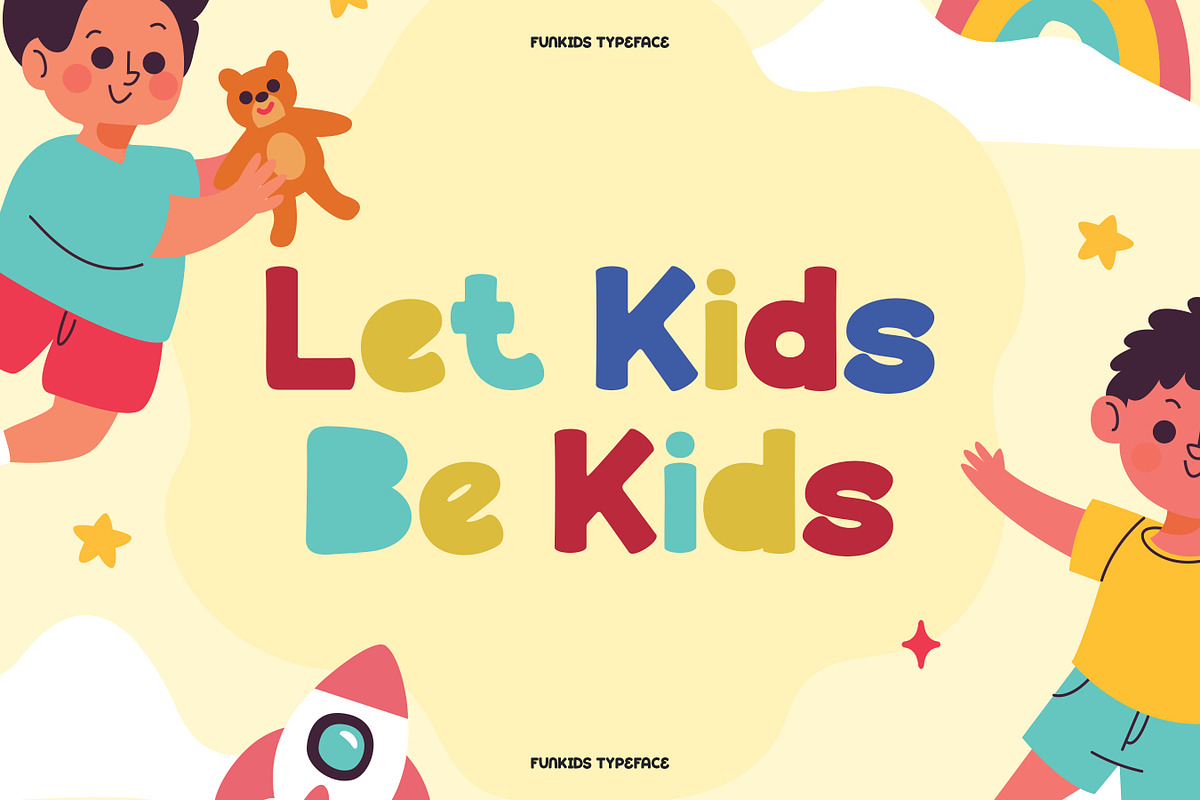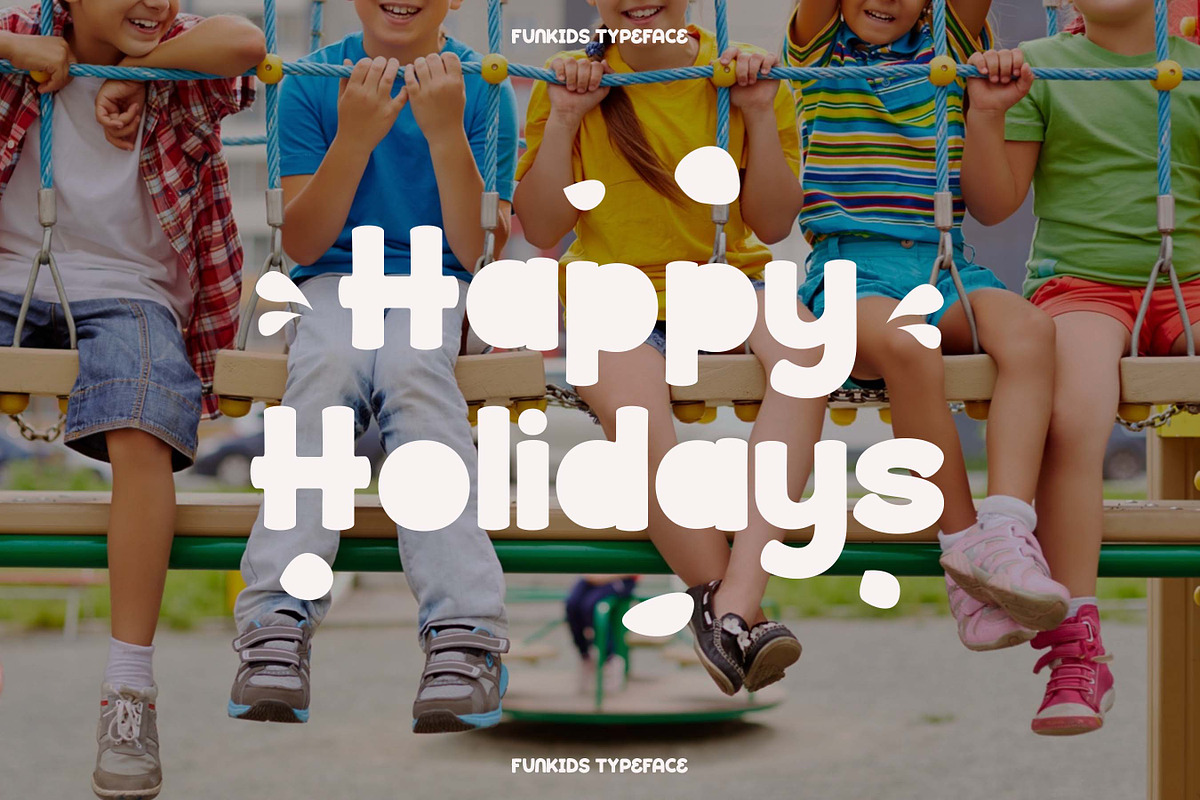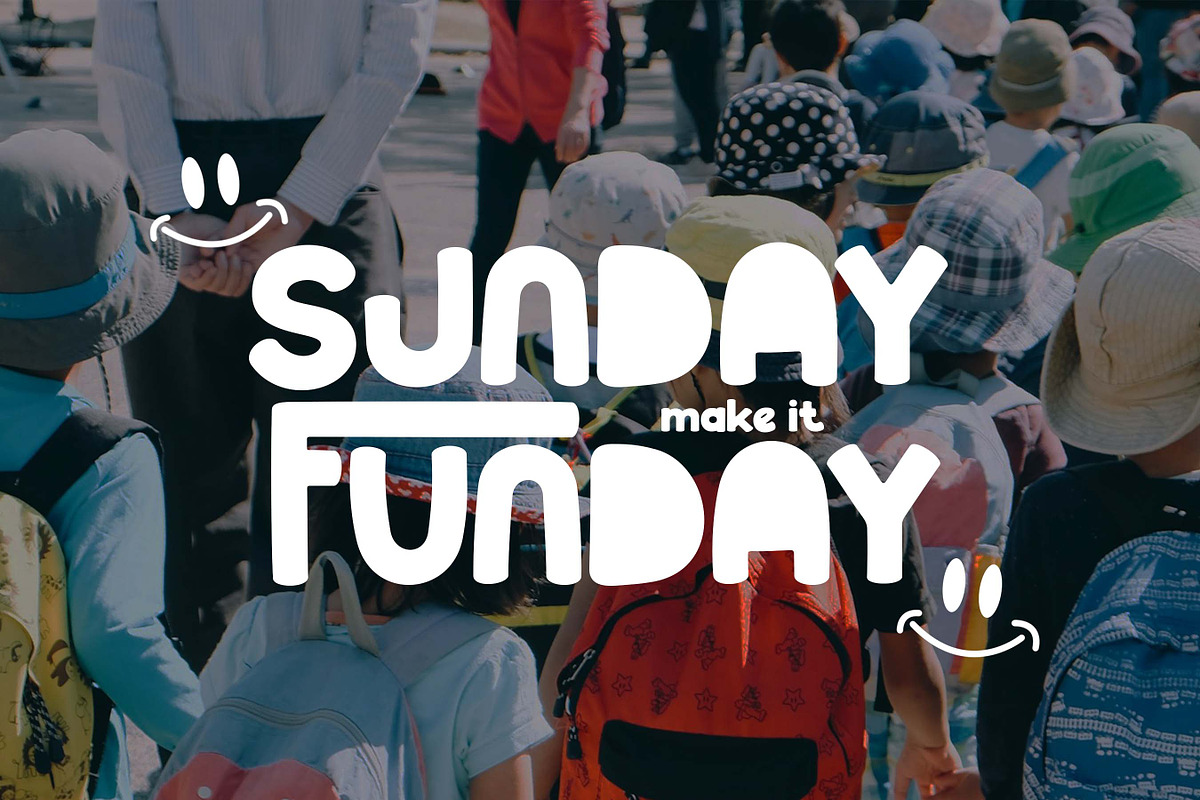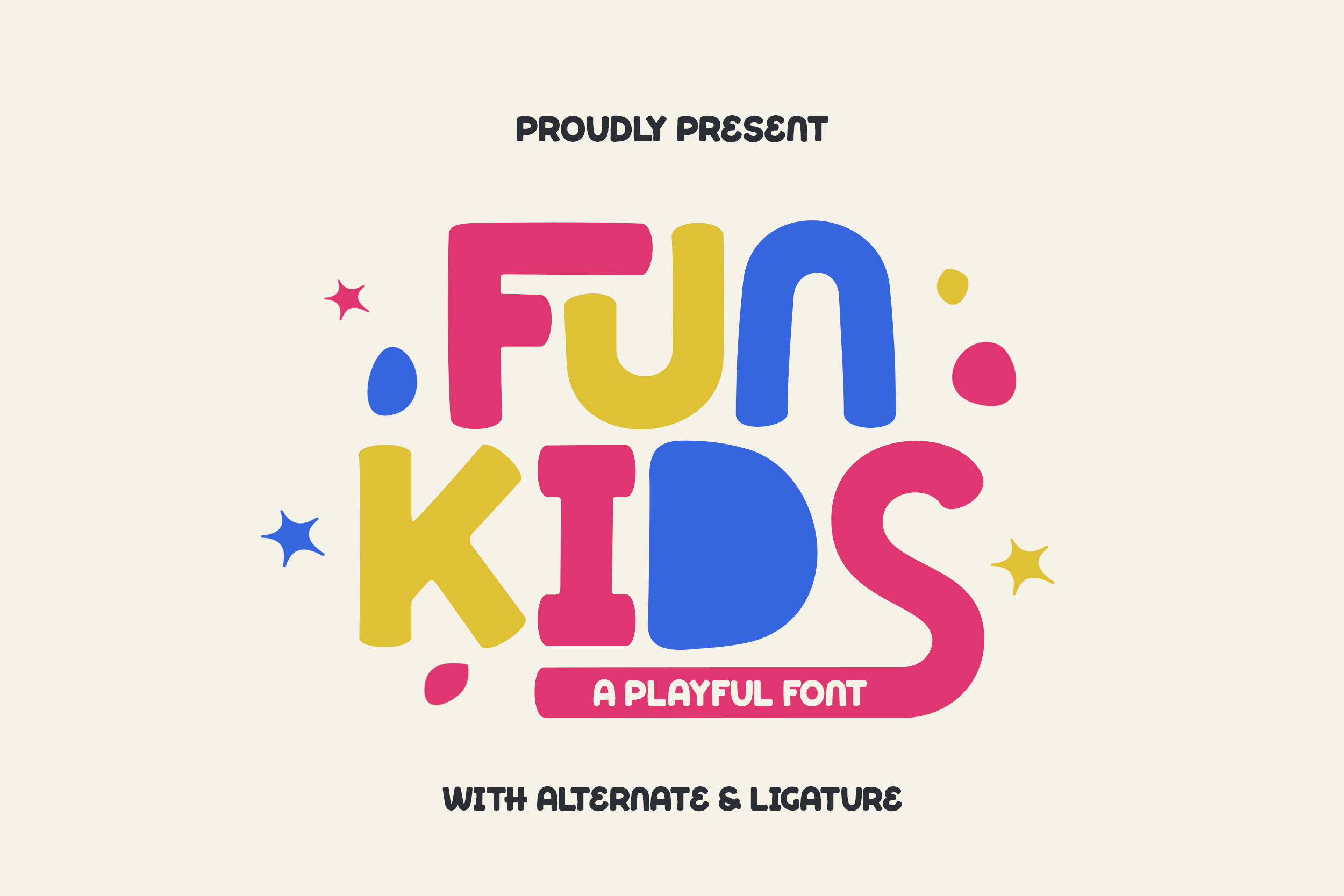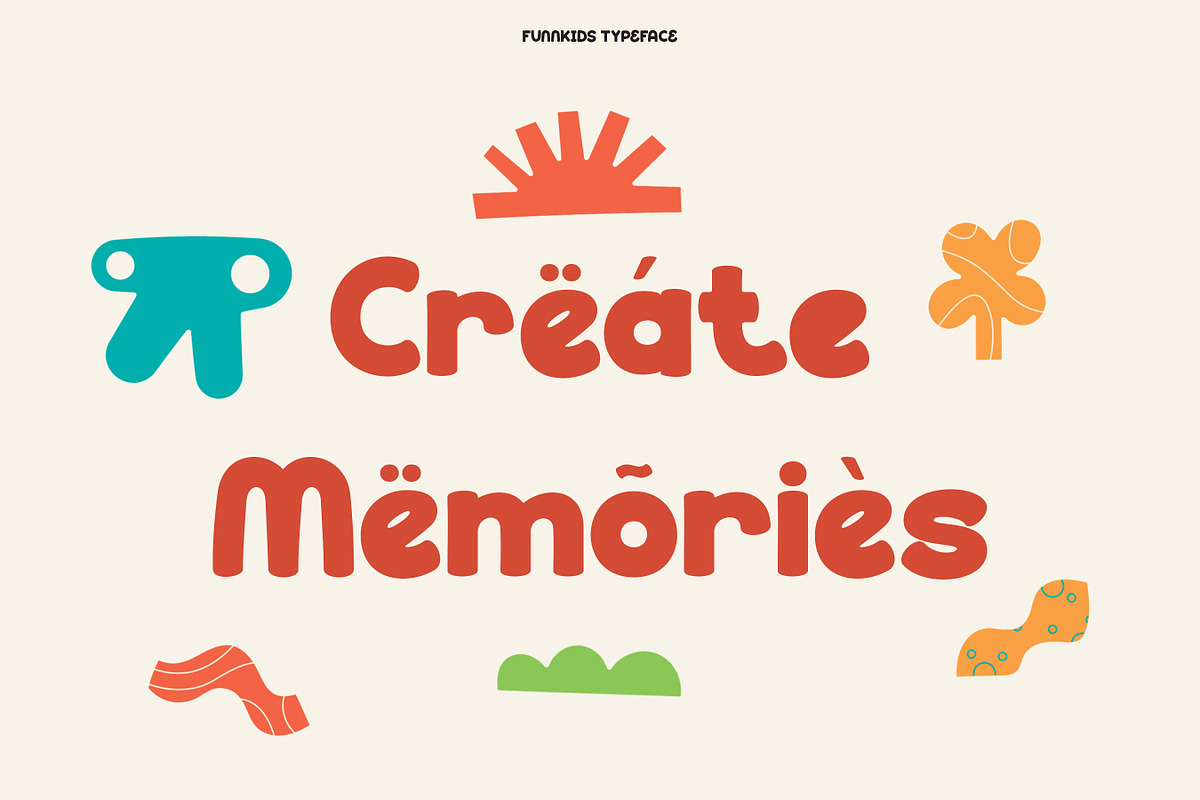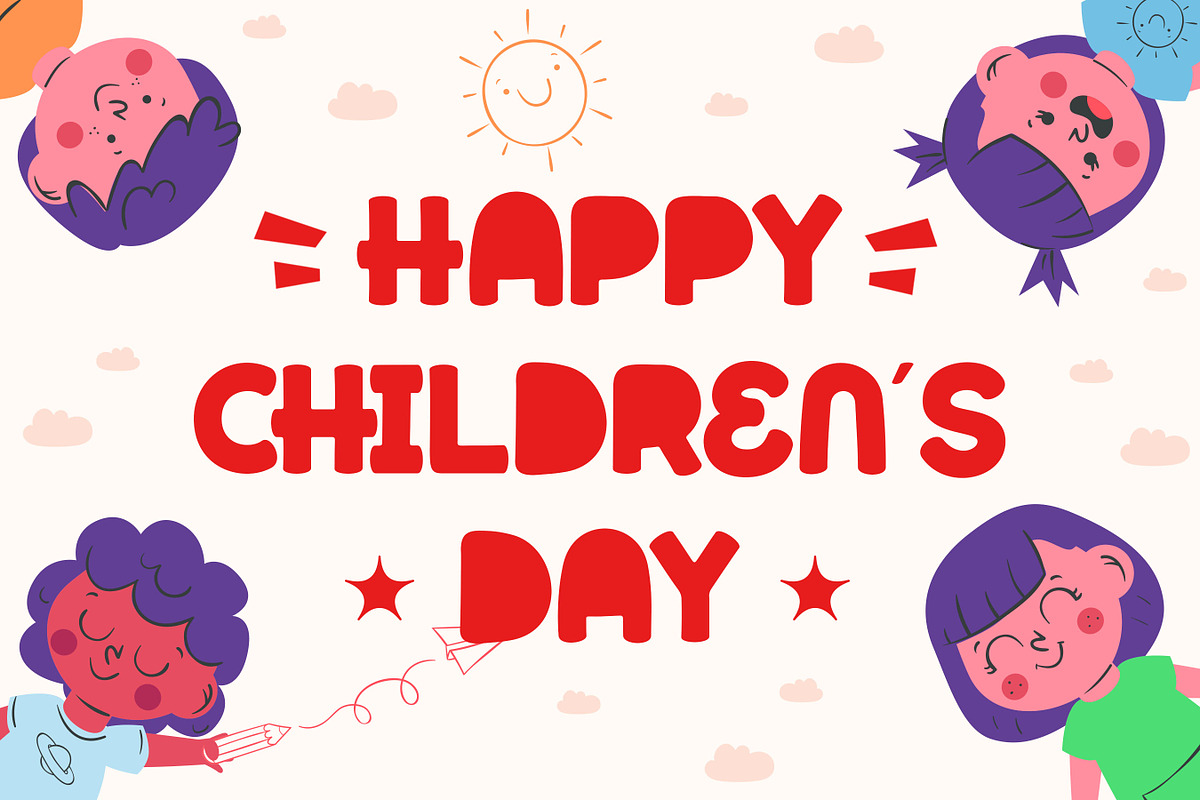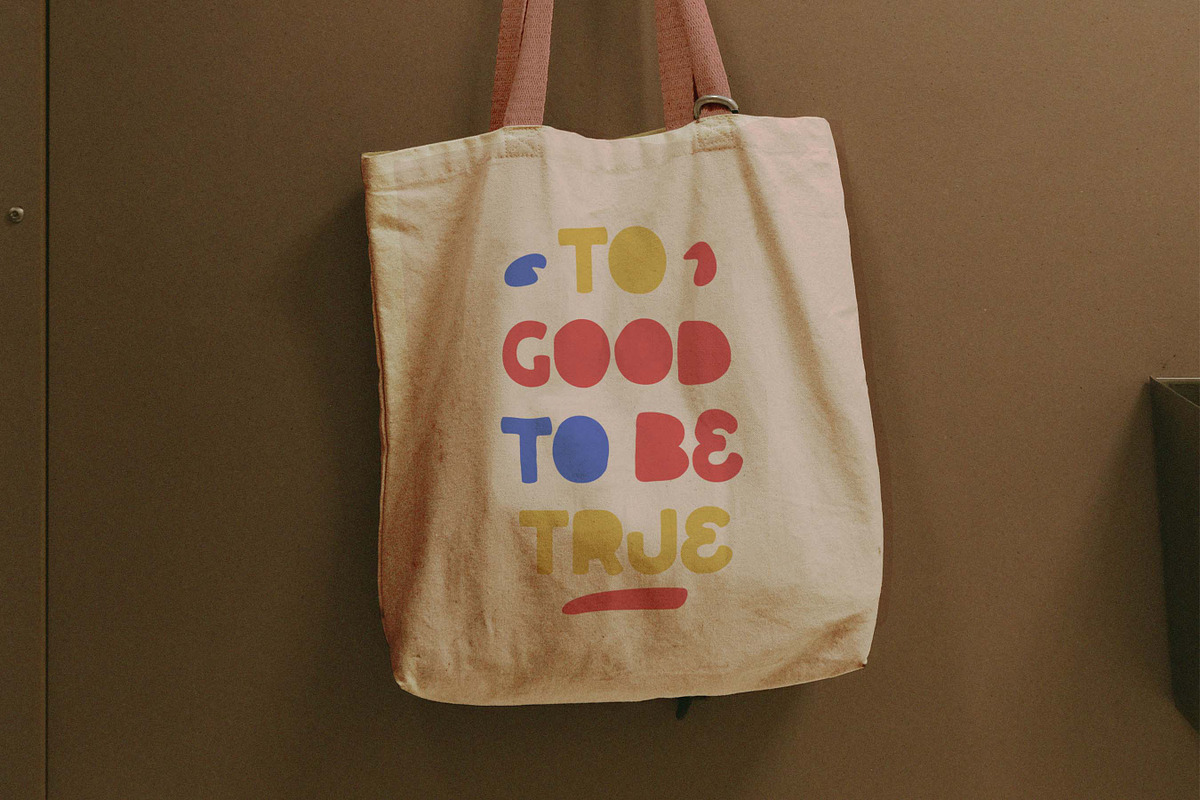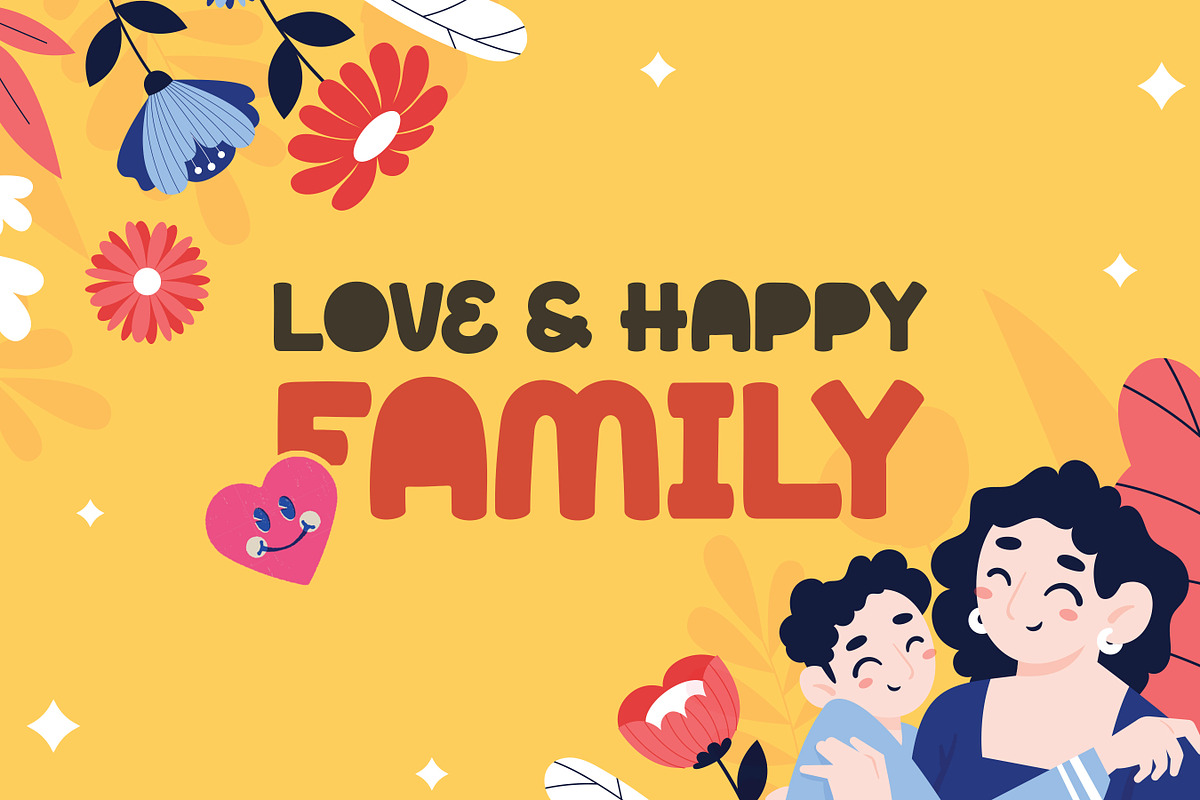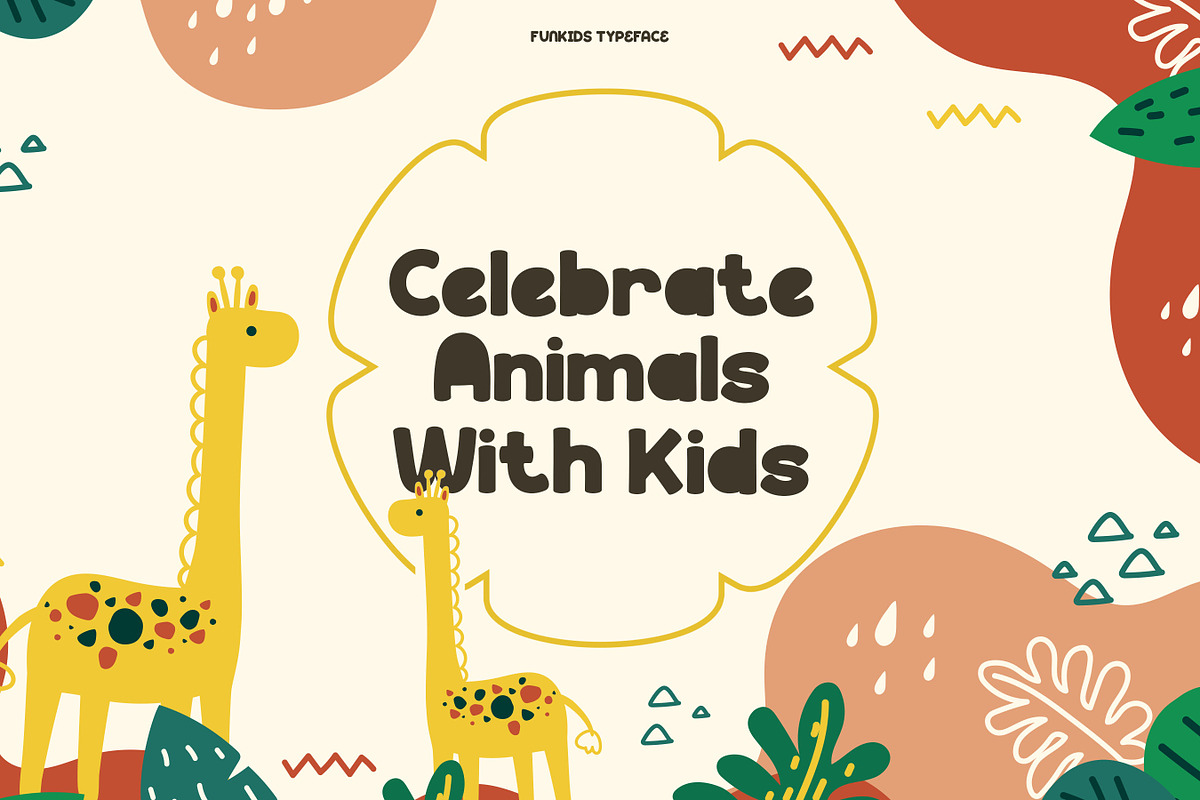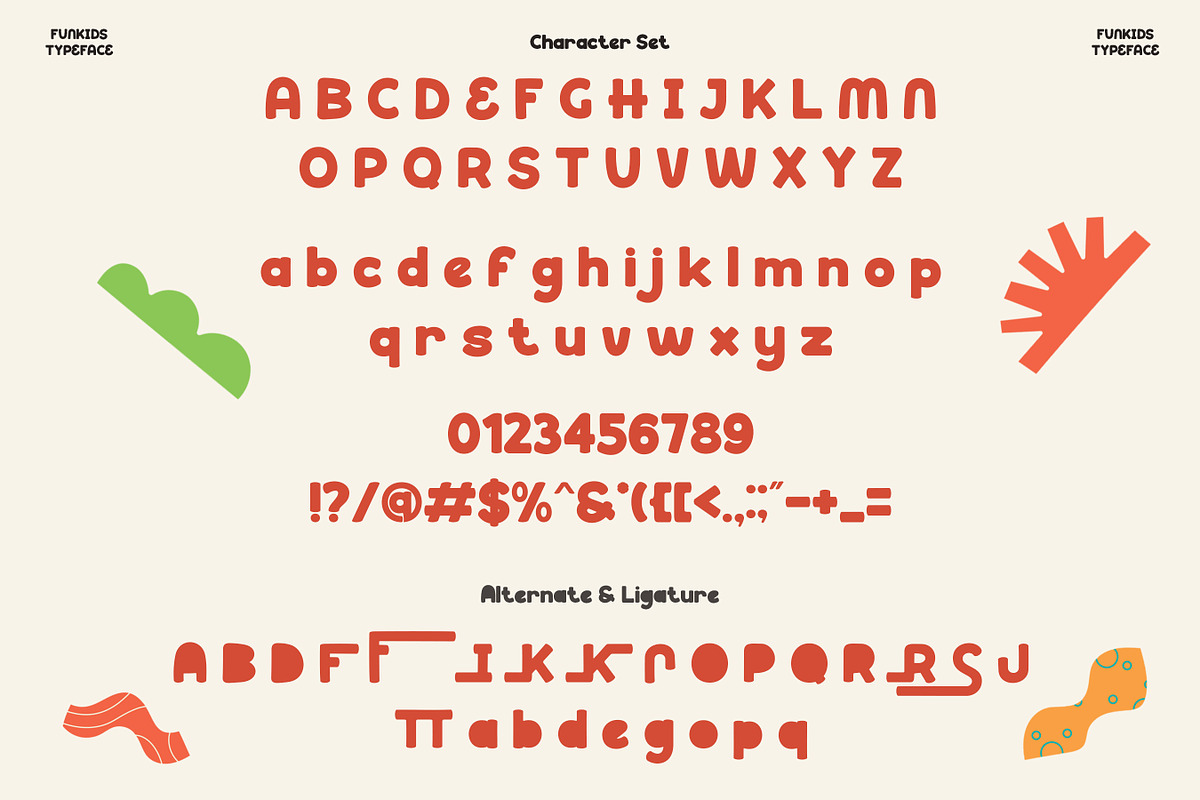
Funkids - Playful Font
FUN KIDS – A Playful Font
FUN KIDS is a bubbly and joyful typeface created to bring smiles and color into your design projects. With its chubby shapes, rounded corners, and whimsical ligatures, FUN KIDS captures the innocence, creativity, and energy of childhood. Whether you're designing for children’s books, school posters, games, toys, or party invitations, this font adds the perfect splash of fun and friendliness. Every letter in FUN KIDS is designed with imagination in mind — making your words feel like they’re ready to jump off the page and play! It comes packed with alternates and ligatures to mix things up and keep the vibe fresh and dynamic.
Who Should Use FUN KIDS Font?
FUN KIDS is perfect for designers, educators, and creatives who want to bring a sense of joy, imagination, and playfulness into their work. Whether you’re designing for little learners, creating child-centered products, or building a brand that speaks to young hearts, this font is made for you.
This font is ideal for:
- Children’s book authors & illustrators
- Kindergarten & early education teachers
- Toy & game brands targeting young audiences
- Party planners and event designers
- Content creators making playful visuals for children
If your goal is to make kids smile and keep things light-hearted and fun — FUN KIDS is your new best friend!
A Must-Have Font for Brand, Logo, and Kids Book Creators & Designers
FUN KIDS is more than just a font — it's a burst of color, creativity, and childlike wonder! Whether you're crafting a playful logo, designing a joyful brand identity, or illustrating a magical kids' book, FUN KIDS brings the energy and friendliness your project needs. Its chunky, bubbly shapes and cheerful personality make it the perfect choice for designs that aim to delight and inspire young minds.
Why Choose FUN KIDS for Brand, Logo, or Kids Book Projects?
Because FUN KIDS is designed to spark joy and imagination! Its playful, rounded shapes and cheerful style instantly create a fun and friendly vibe—perfect for brands that cater to children or families. Whether you're working on a colorful logo, an engaging book cover, or playful merchandise, FUN KIDS adds personality and warmth. The font is easy to read, visually appealing, and packed with charm—making it the go-to choice for creatives who want their designs to feel happy, approachable, and full of life.
Suitable For:
- Kids’ book covers and story illustrations
- Educational posters and learning materials
- Children’s brand logos and packaging
- Birthday invitation cards and party decor
- Cartoon titles and playful animations
- Toy branding and merchandise
- Apps or games designed for children
- Social media content targeting young audiences